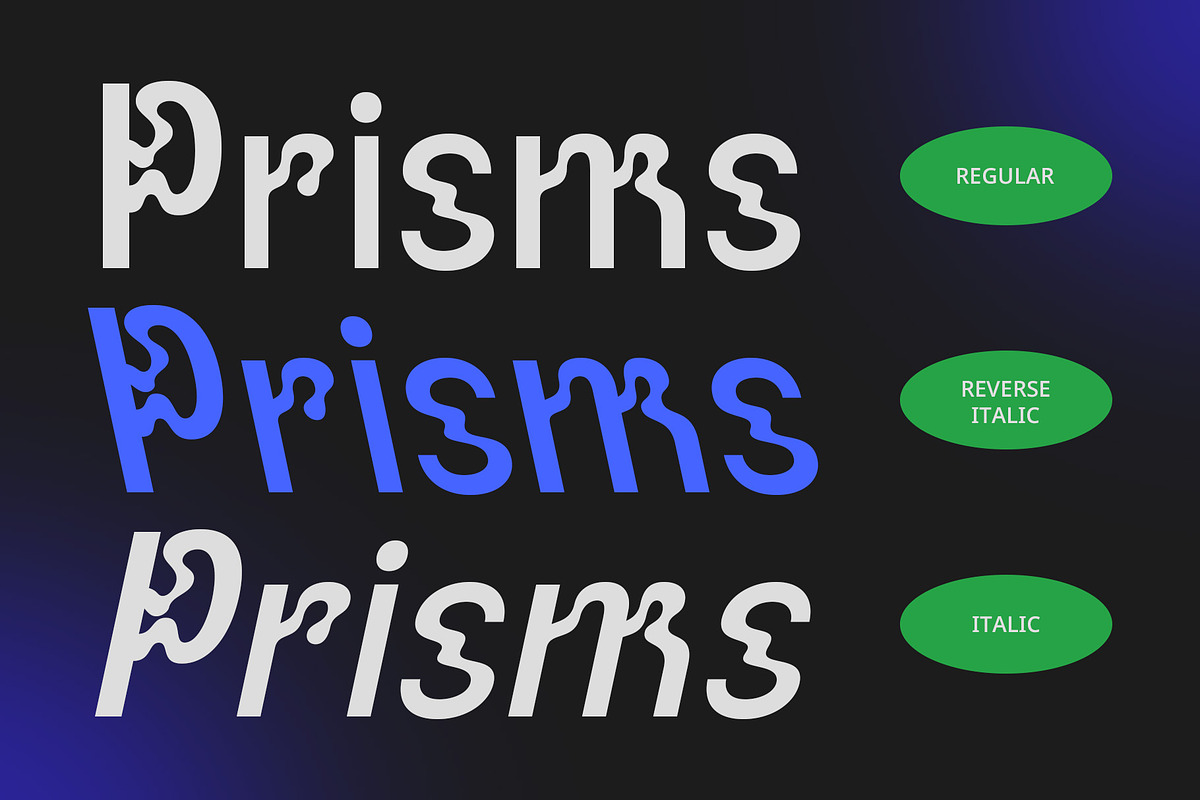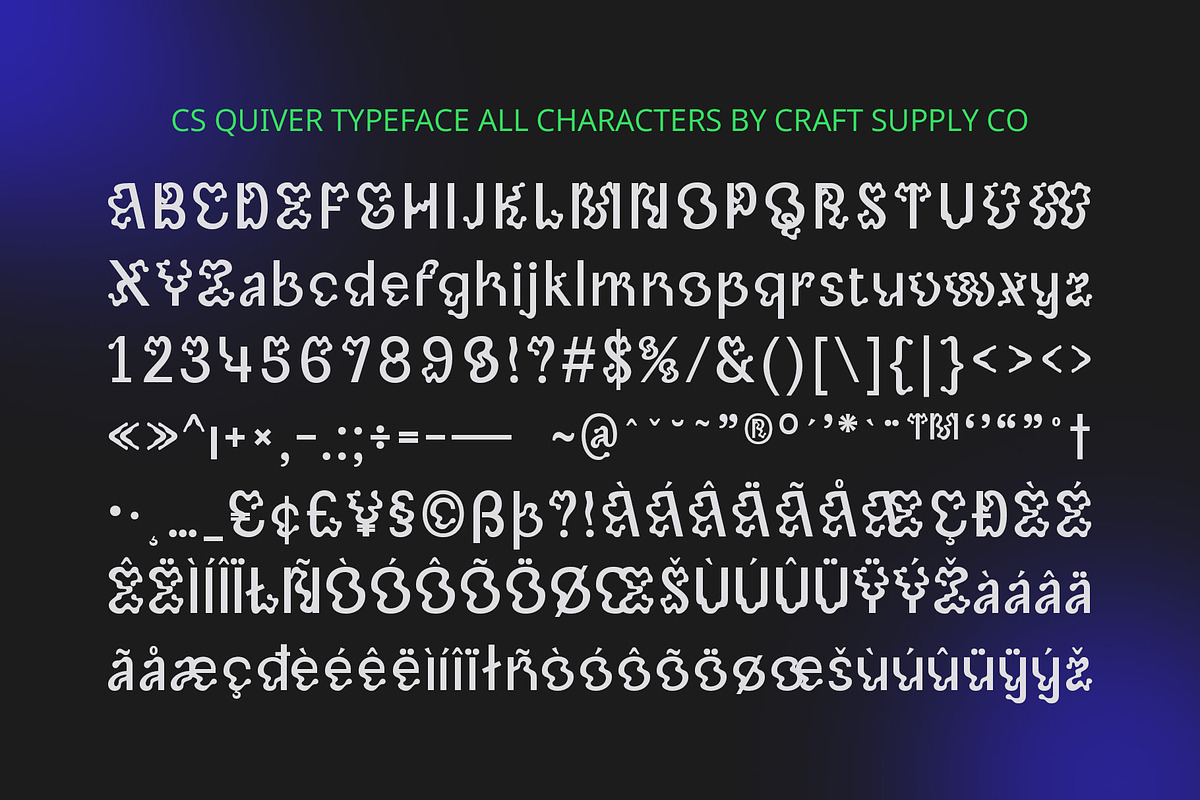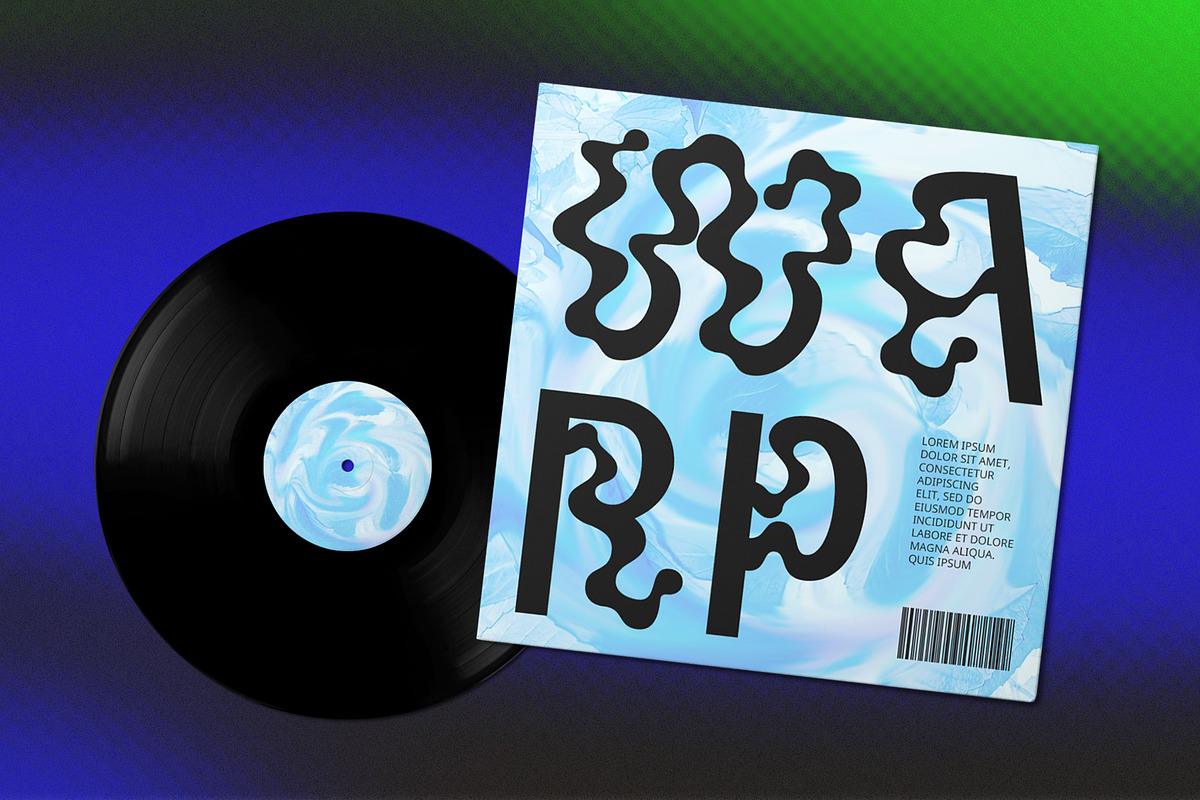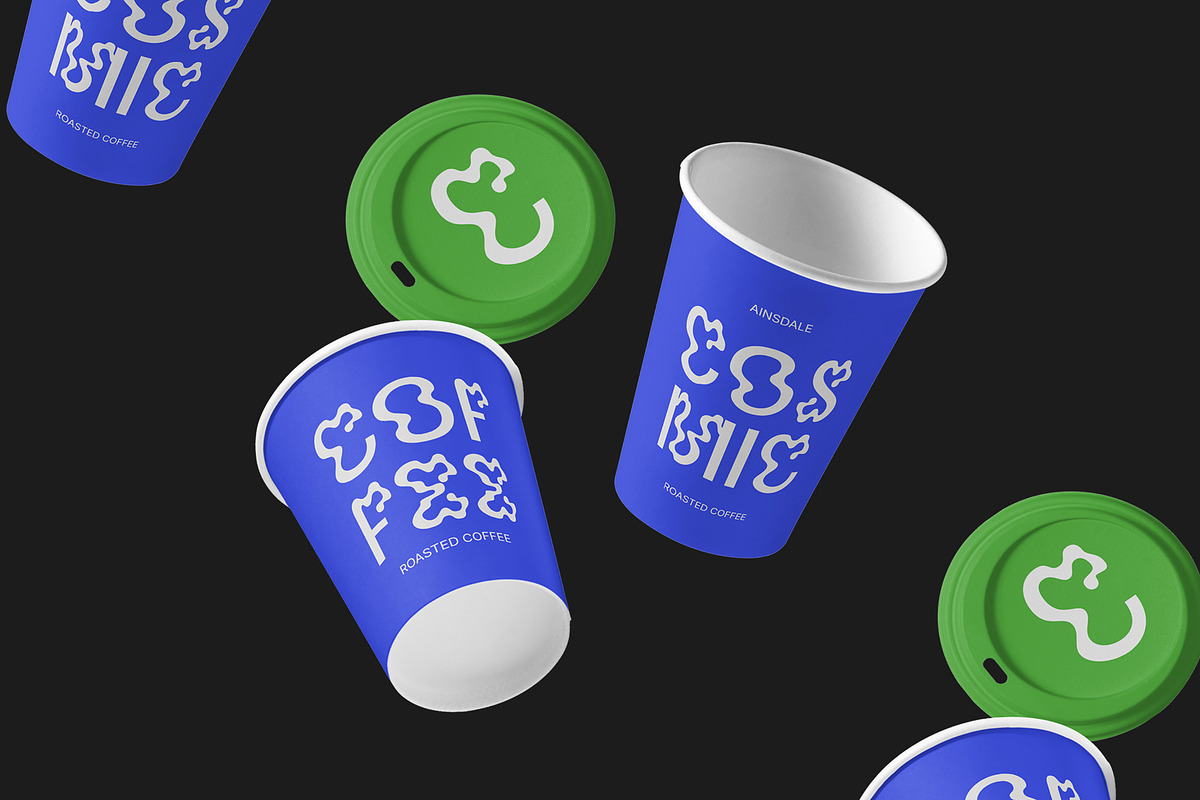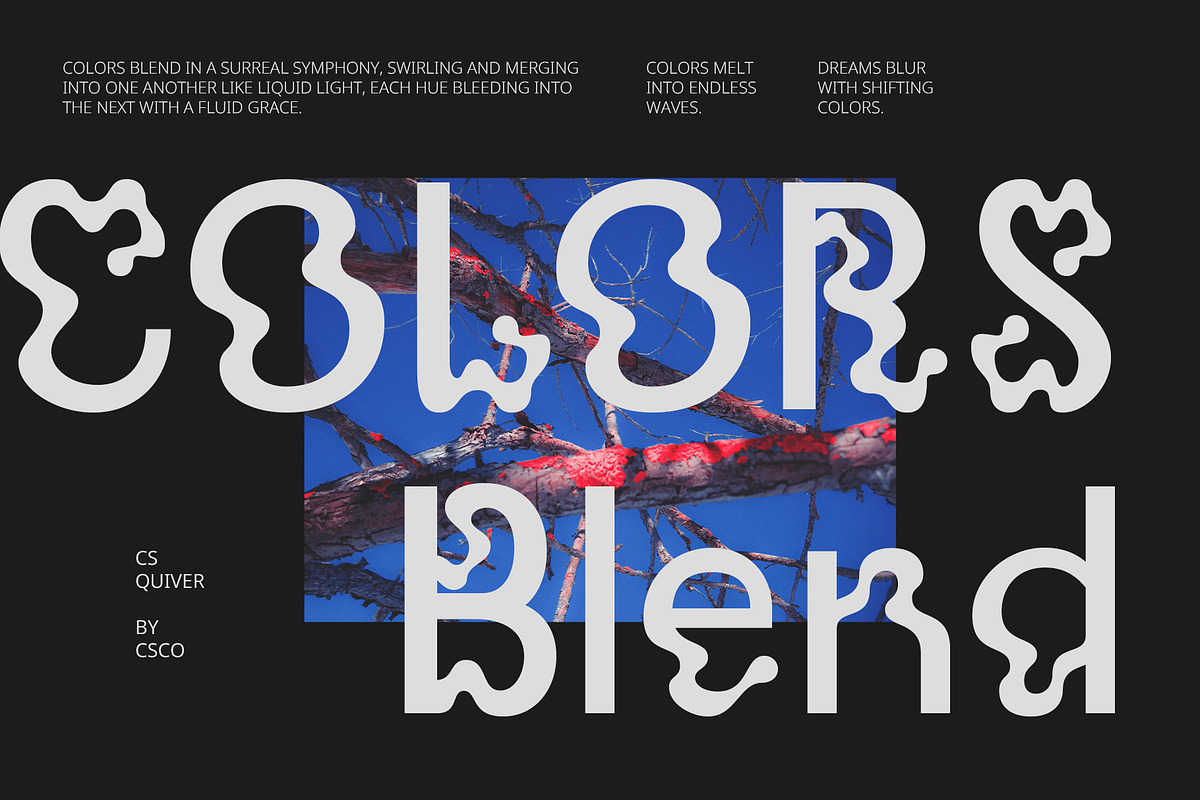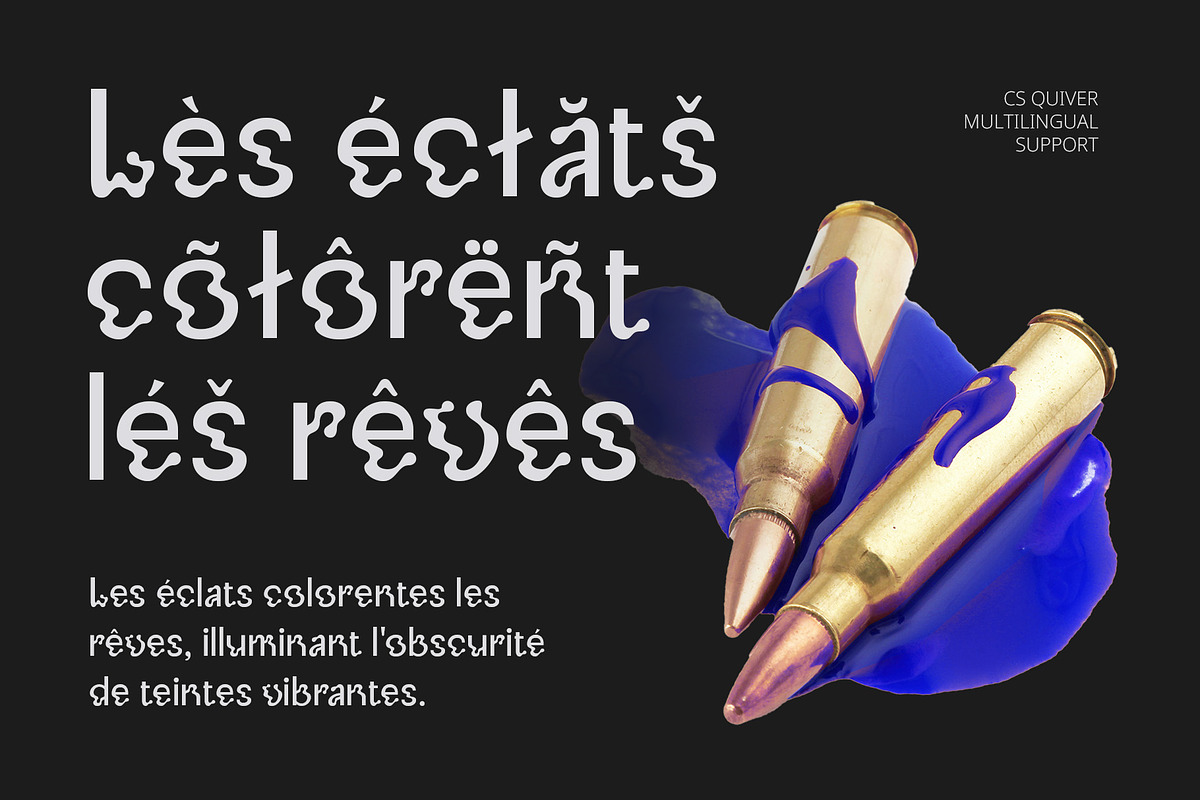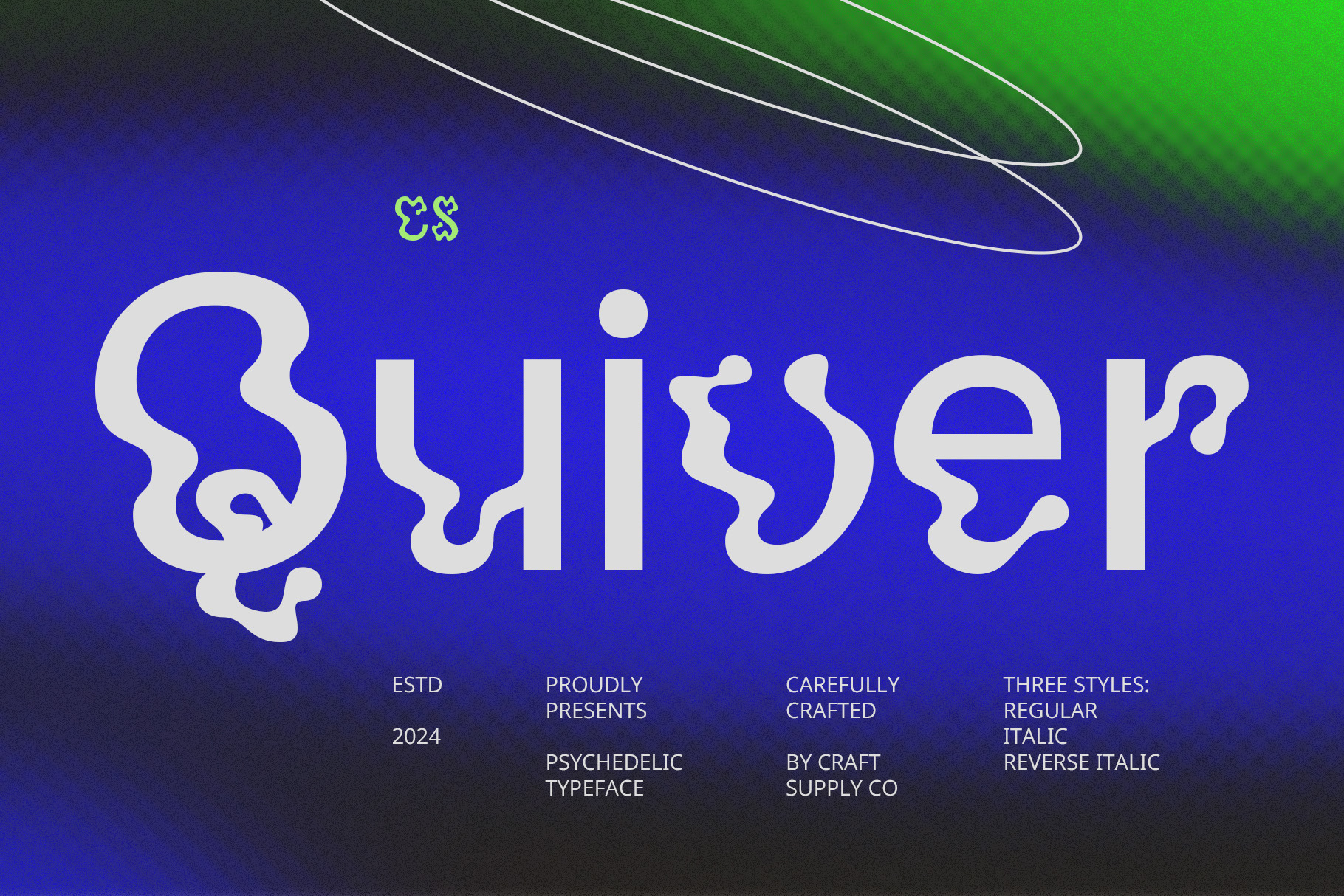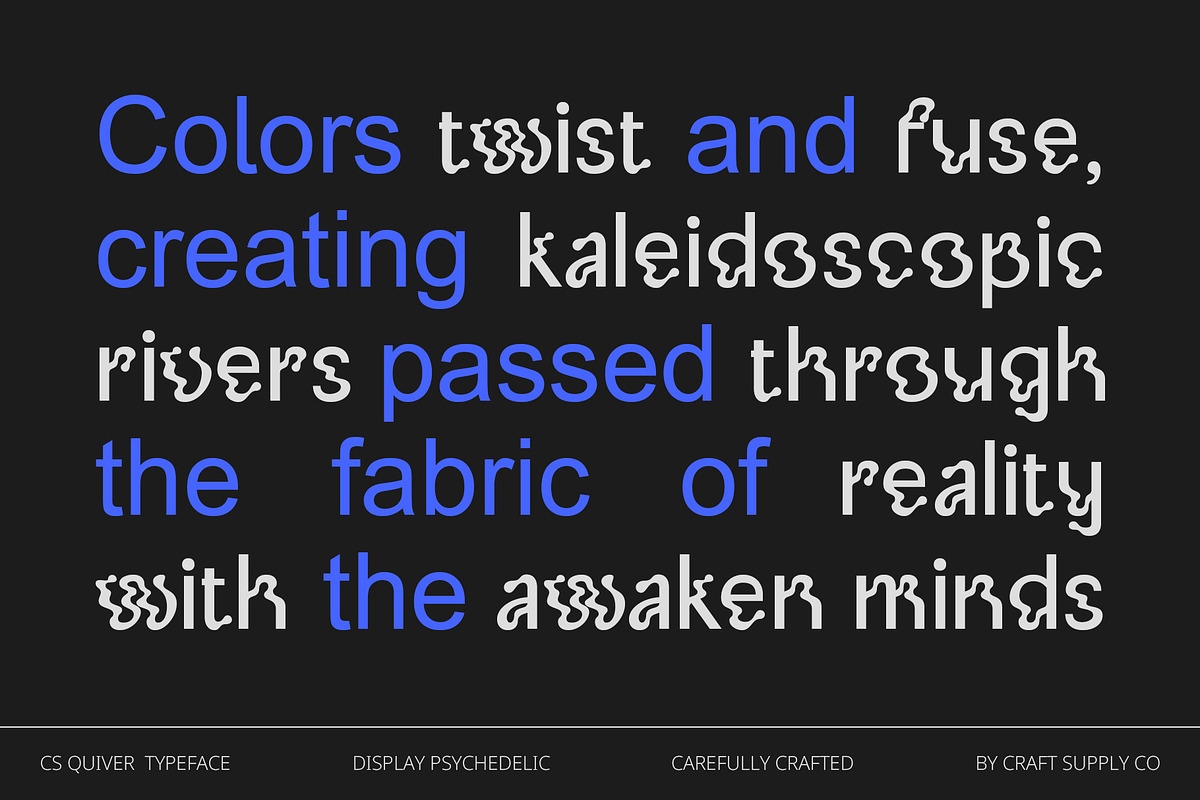
CS Quiver – Trippy Font
CS Quiver – Trippy Display Sans Serif Font
Bold, Eccentric, and Full of Energy CS Quiver is a display sans serif font designed to capture attention with its bold, eccentric aesthetic. Featuring curving, asymmetrical shapes and striking visual distortions, this font invites the reader into a surreal, imaginative world. Its distinctive style incorporates elements that mimic optical illusions or visual effects, transforming the ordinary into something extraordinary.
Vibrant and Playful Vibes With its dynamic, energetic forms and vibrant visual presence, CS Quiver exudes a funky, free-spirited atmosphere. The font’s bold lines and unique shapes are ideal for projects that aim to evoke creativity, playfulness, and youthful energy. Whether used in music posters, festival graphics, or album covers, CS Quiver shines with a fun and exciting vibe.
Perfect for Creative and Psychedelic Designs CS Quiver is the ultimate choice for design projects that require a touch of psychedelia and artistic flair. Its captivating design makes it perfect for advertisements, posters, and creative campaigns that want to stand out and grab the audience’s attention. This trippy font, with its surreal and imaginative feel, is especially suited for projects targeting energetic, enthusiastic, and youthful audiences.
- CS Quiver Regular
- CS Quiver Italic
- CS Quiver Reverse Italic